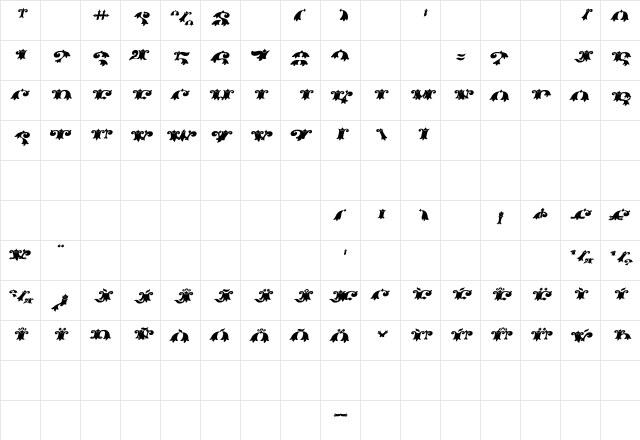
Gold Std Italic Fill Half Regular
Design Context for Gold Std Italic Fill Half Typeface
Gold Std Italic Fill Half is a composed and adaptable typeface that performs quietly and consistently across a wide range of design contexts. The dynamic lean of this cut emphasises speed and emphasis in any layout.